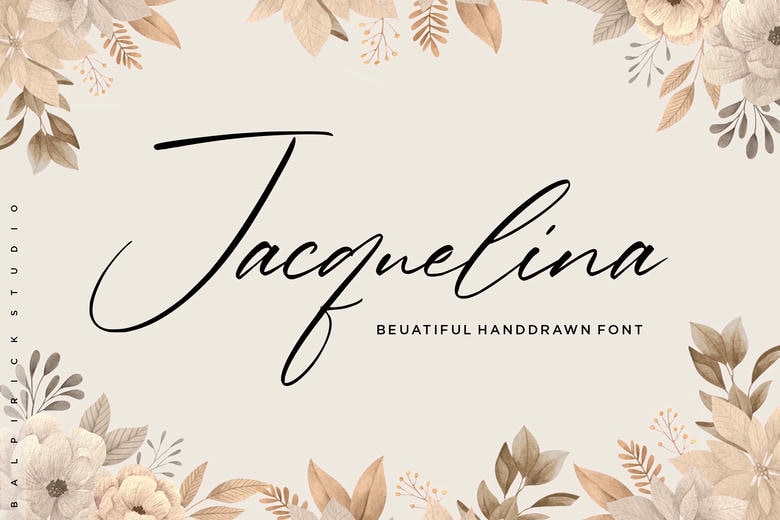
Jacquelina Font
Jacquelina is a thin, elegant script font with a graceful look. Its beautiful style is perfect for wedding invitations, stationery, social media posts, and many other creative projects.
Jacquelina Handwritten Script Font